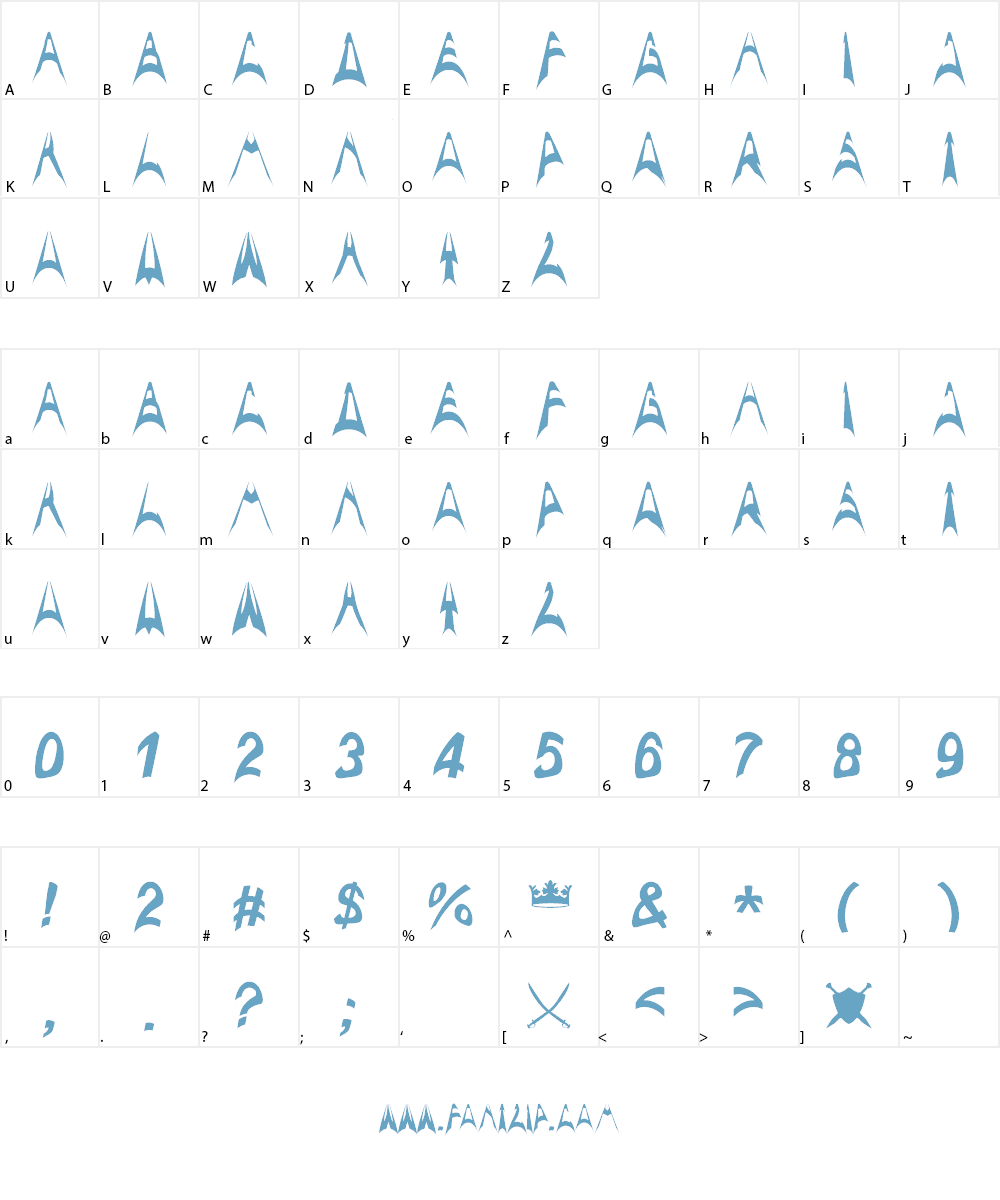
Look out for this villain. I arched all the bottoms to make this font exactly its name: Arched style or AKA Arch Enemy.
arched
/ärCHt/
constructed with or in the form of an arch or arches
------------------------------------------------------
arch·en·e·my
noun
noun: arch-enemy
a person who is extremely hostile or opposed to someone or something.